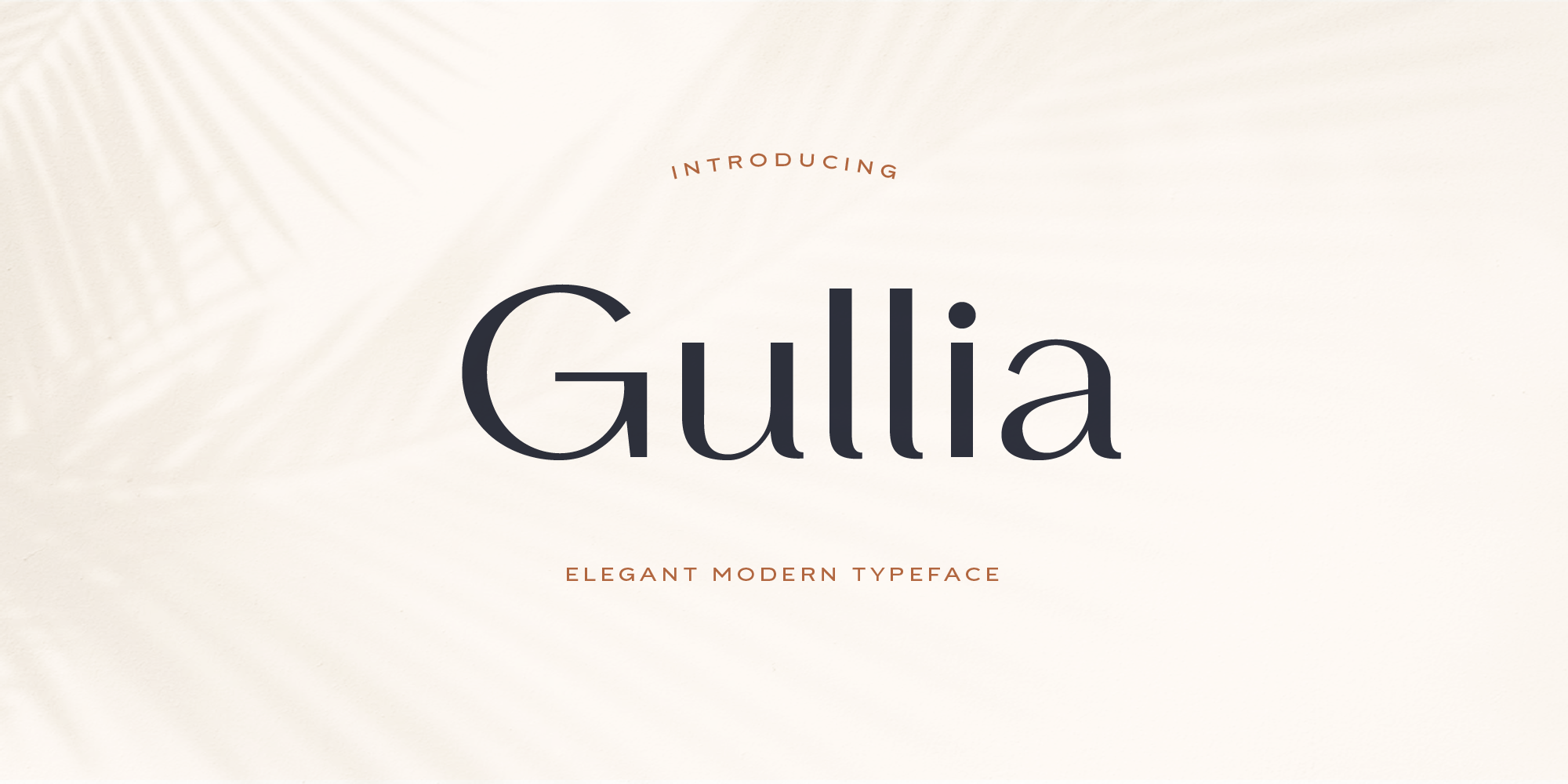
Gullia Font is a versatile and contemporary typeface, perfect for designs that aim to convey modern clarity, a sophisticated aesthetic, and a touch of unique personality. Its clean lines, balanced proportions, and often subtle distinctive details make it an excellent choice for corporate branding, editorial design, digital interfaces, and marketing materials. Imagine it providing sleek readability for a tech company's website, adding a refined yet approachable feel to annual reports, or ensuring impeccable clarity for educational platforms. This font is also superb for apparel branding for modern lifestyle brands, packaging design, and any project where efficiency, professionalism, and a harmonious visual identity are key. It doesn't just display text; it enhances your message with a sense of innovative precision and effortless style.
What makes Gullia Font so exciting is its remarkable ability to blend clean, modern design with subtle distinctive details that give it character without being distracting. It strikes a harmonious balance between being highly legible and uniquely stylish, making it incredibly adaptable for a wide range of applications. This unique combination allows designers to create visually compelling content that is both professional and creatively inspired. It’s a font that speaks with a clear, confident voice, making it ideal for brands and content creators who want to convey reliability, innovation, and a sophisticated, no-fuss aesthetic. Its balanced appeal can make any design feel more cohesive and effortlessly modern.
The Gullia Font family typically offers a comprehensive range of weights and styles to provide extensive design flexibility and allow for nuanced typographic expressions. While the exact variations can differ based on the specific design, you can generally expect to find key members that support diverse layout needs, such as:
Gullia Thin
Gullia Light
Gullia Regular
Gullia Medium
Gullia SemiBold
Gullia Bold
Gullia ExtraBold
Gullia Black
Gullia Italic (for most, if not all, weights)
Gullia Condensed (if available, for space-saving applications)
Gullia Extended (if available, for wider display)
These various weights and styles empower designers to create effective visual hierarchies, emphasize important information, and maintain a consistent, polished, and contemporary look throughout all digital and print assets. The opportunity to utilize Gullia Font Free Download is an excellent way to experience its versatile elegance and modern appeal for your personal projects.